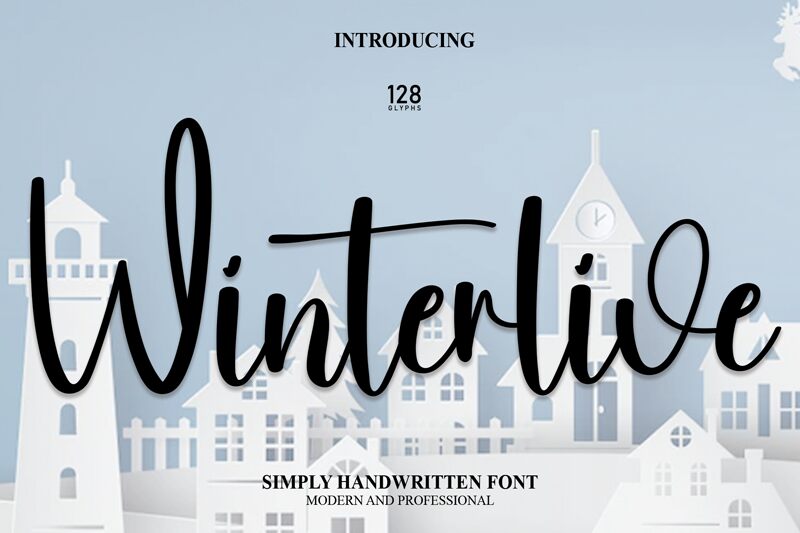
Winterlive
Winterlive, a semi-light handwritten font designed by Scratchones, captures the essence of personal touch in its sweeping curves and elegant lines. With a style that feels both dynamic and intimate, this font brings a unique warmth to any project it graces. The seemingly effortless flow of Winterlive's characters suggests a casual sophistication that makes it perfect for invitations, branding, and editorial designs.
The aesthetic appeal of Winterlive lies in its blend of classic handwriting with modern sensibilities. Each character is crafted with an attention to detail that resonates with audiences seeking that human element often lost in digital communication. Its semi-light weight adds a subtle delicacy to the overall look, making it versatile enough for both high-impact headlines and understated body text.
Whether you're looking to inject personality into your creative project or aiming for an approachable yet stylish vibe, Winterlive's handwritten charm is sure to elevate your design with its authentic and engaging flair.